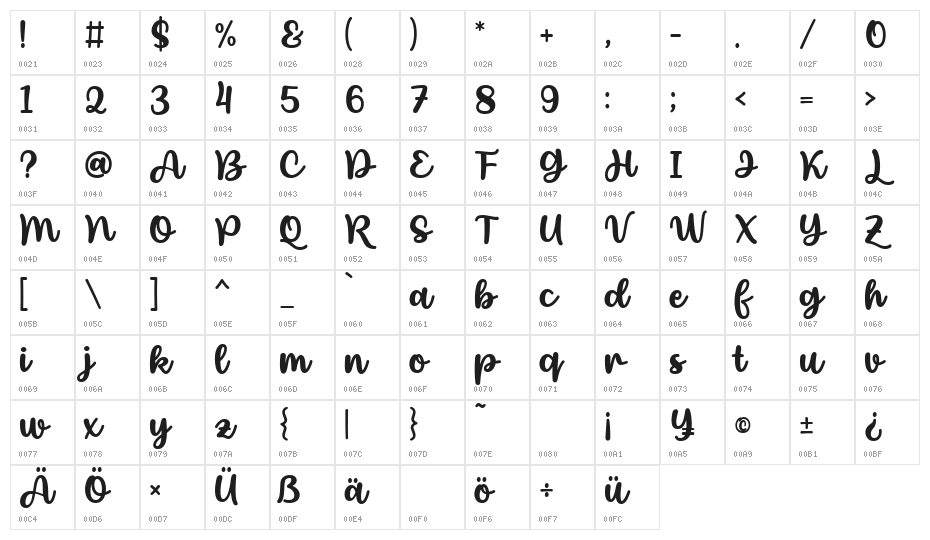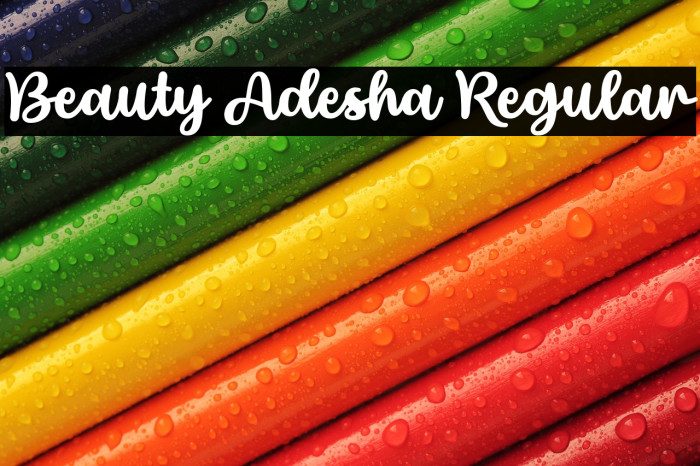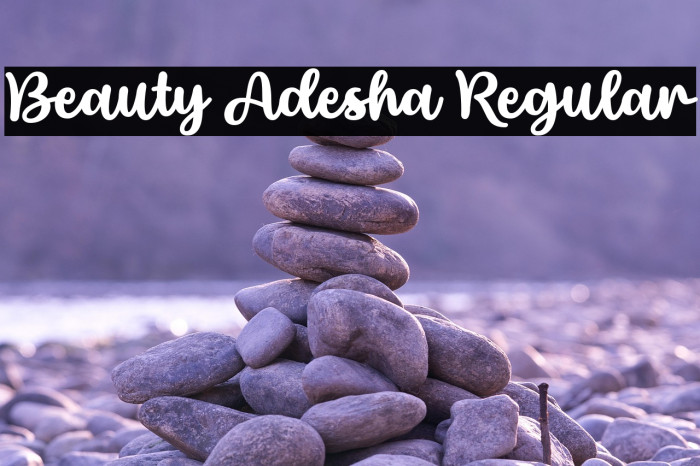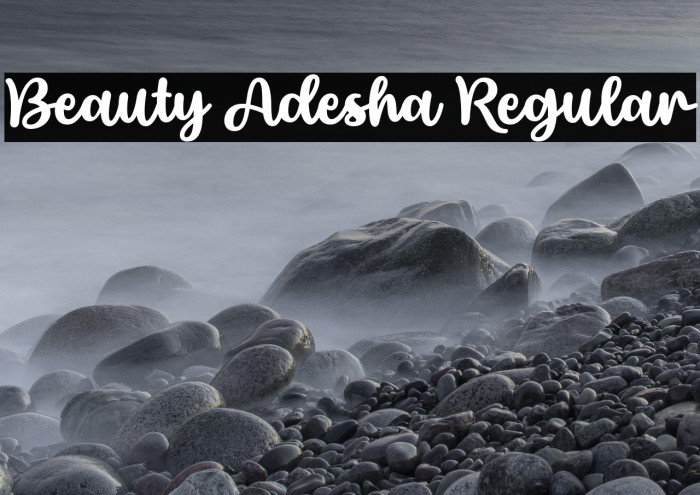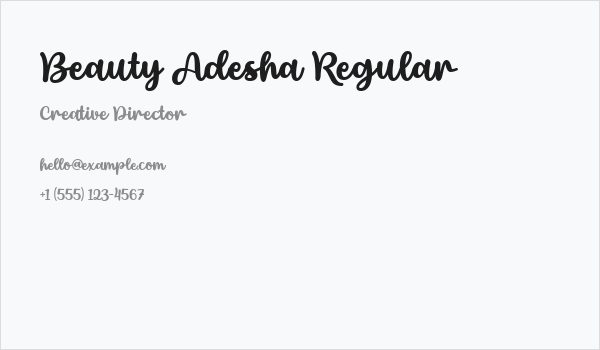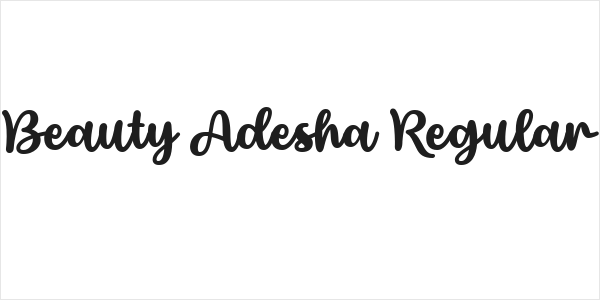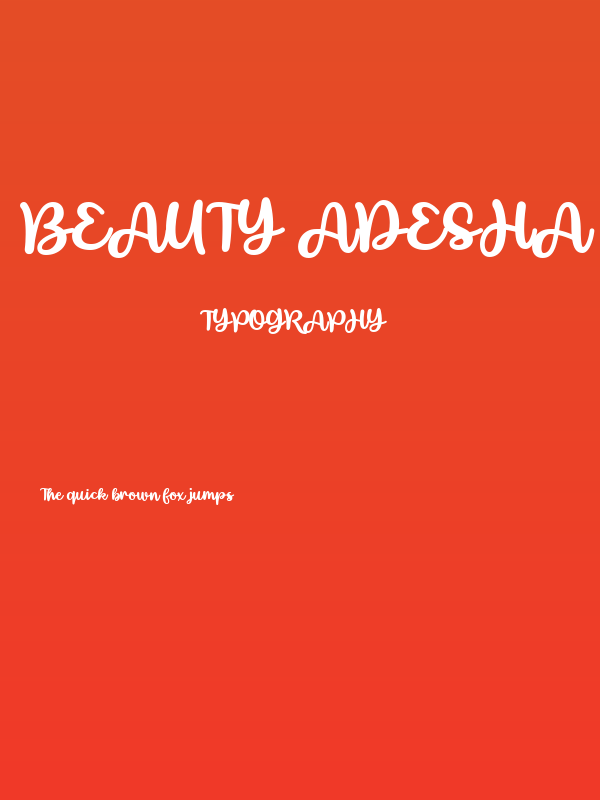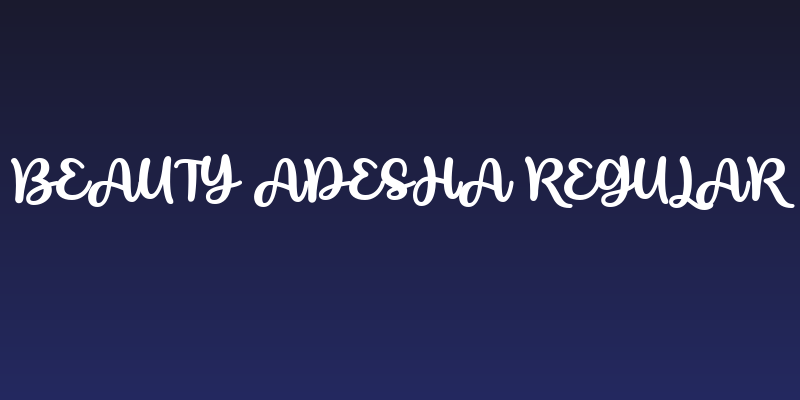
Beauty Adesha Regular Font
Beauty Adesha Regular Description
This font features a playful and flowing script style, characterized by its smooth, rounded edges and consistent stroke width. The letters are interconnected, creating a sense of continuity and elegance. The uppercase letters maintain a uniform height, while the lowercase letters exhibit a slight variation in size, adding to the font's dynamic appearance. The numerals and special characters are crafted with the same fluidity, ensuring a cohesive look across all elements. This font exudes a friendly and approachable vibe, making it suitable for a variety of creative applications.
| Use Case | Logos, Invitations, Social Media |
| Proposed Projects | Ideal for wedding invitations, greeting cards, branding projects, and social media graphics. |